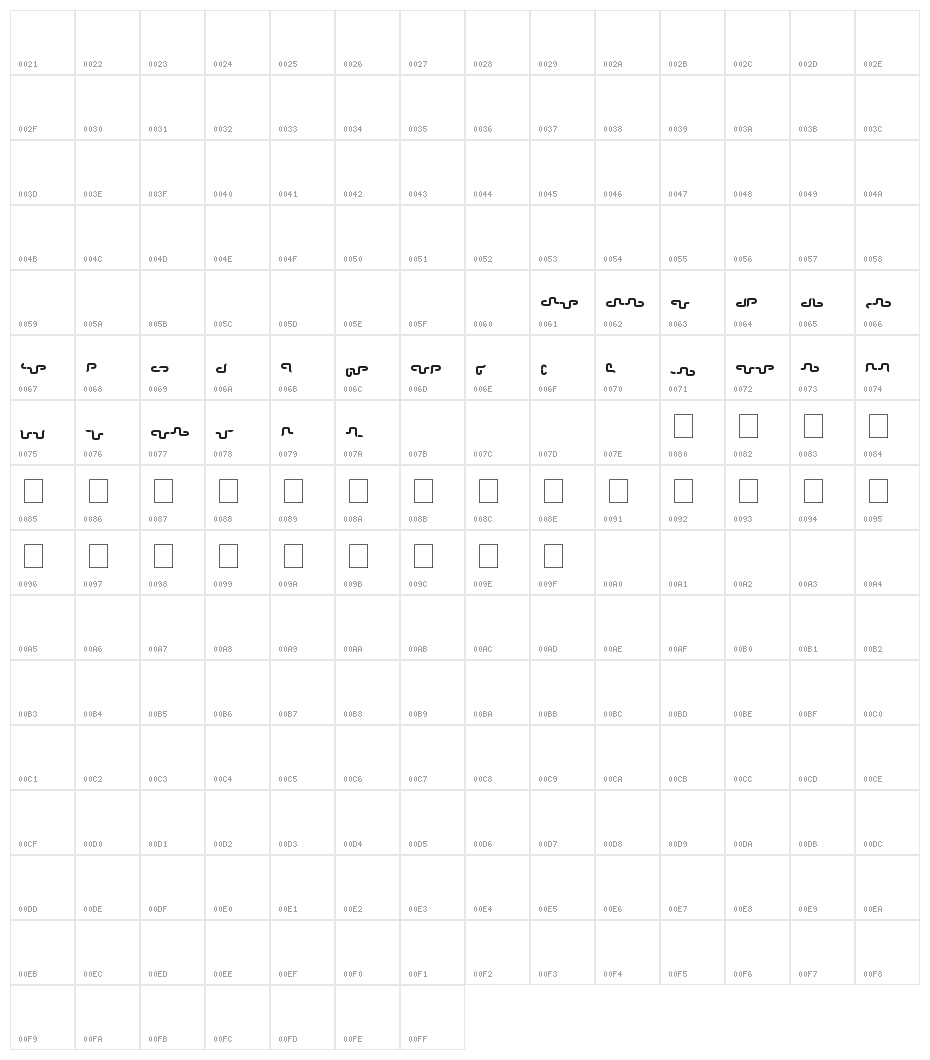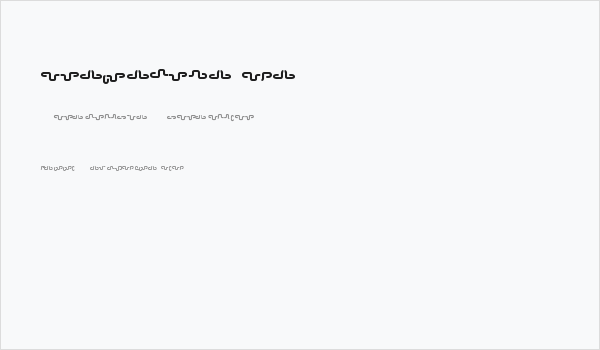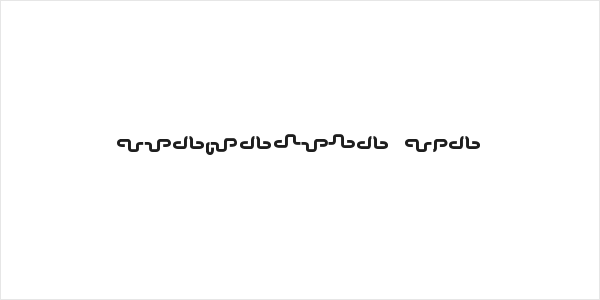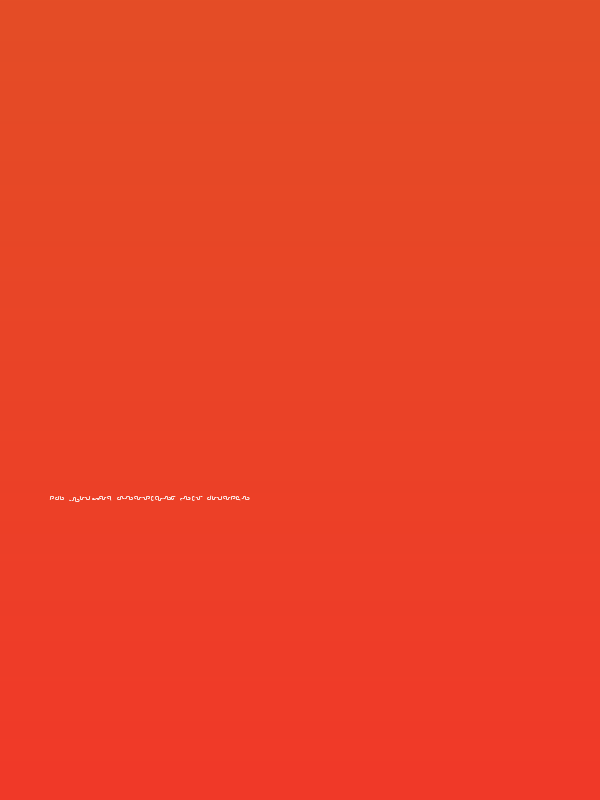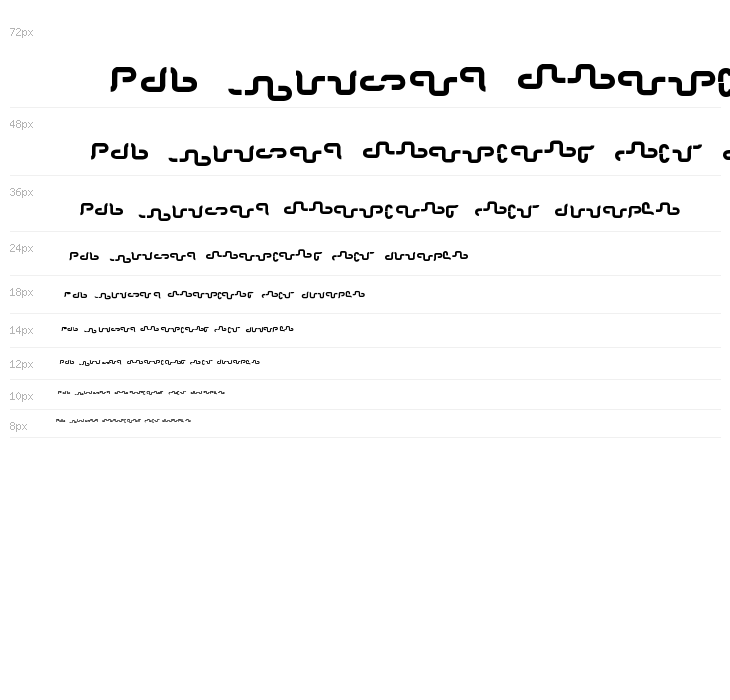
release me Font
release me Description
This design features a series of abstract, decorative symbols that resemble a unique script or code. Each character is composed of smooth, flowing lines with consistent thickness, creating a cohesive and harmonious appearance. The symbols are evenly spaced, maintaining a uniform look across the design. The style is highly decorative, making it suitable for artistic or ornamental purposes rather than traditional text representation. The overall aesthetic is modern and abstract, with a playful and creative vibe.
| Use Case | Artistic designs, decorative elements |
| Proposed Projects | Ideal for artistic designs, decorative borders, or unique branding elements. |